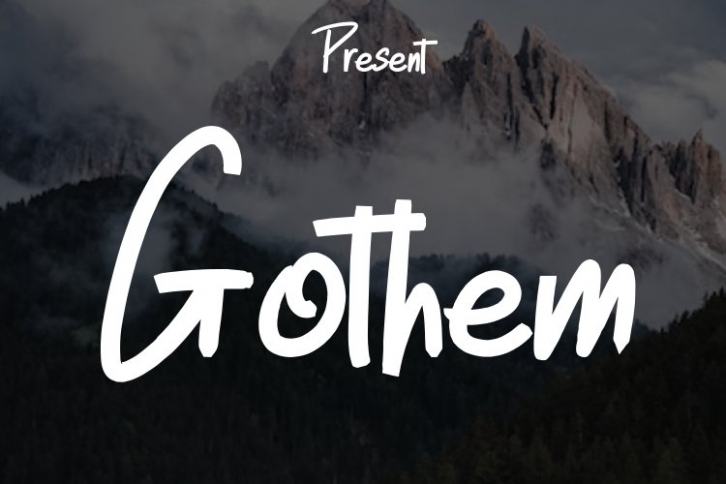
Gothem is a great font that was designed by kreatif eric. Imagine the amount of combinations you can create using this font! The archive is 21.18 MB and it was released on September 7, 2022. Gothem looks beautiful on wedding invitations, greeting cards, logos, posters, labels, t-shirt designs, logos, business cards and is perfect for use in ink or watercolor works, fashion, magazines, packaging and food menus, children's books and more!